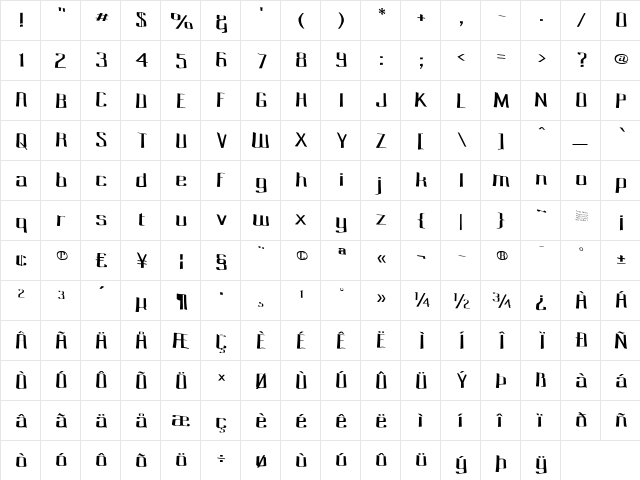
Pecot Spacewarp Regular
Design Context for Pecot Spacewarp Typeface
Pecot Spacewarp is a composed and adaptable typeface that performs quietly and consistently across a wide range of design contexts.